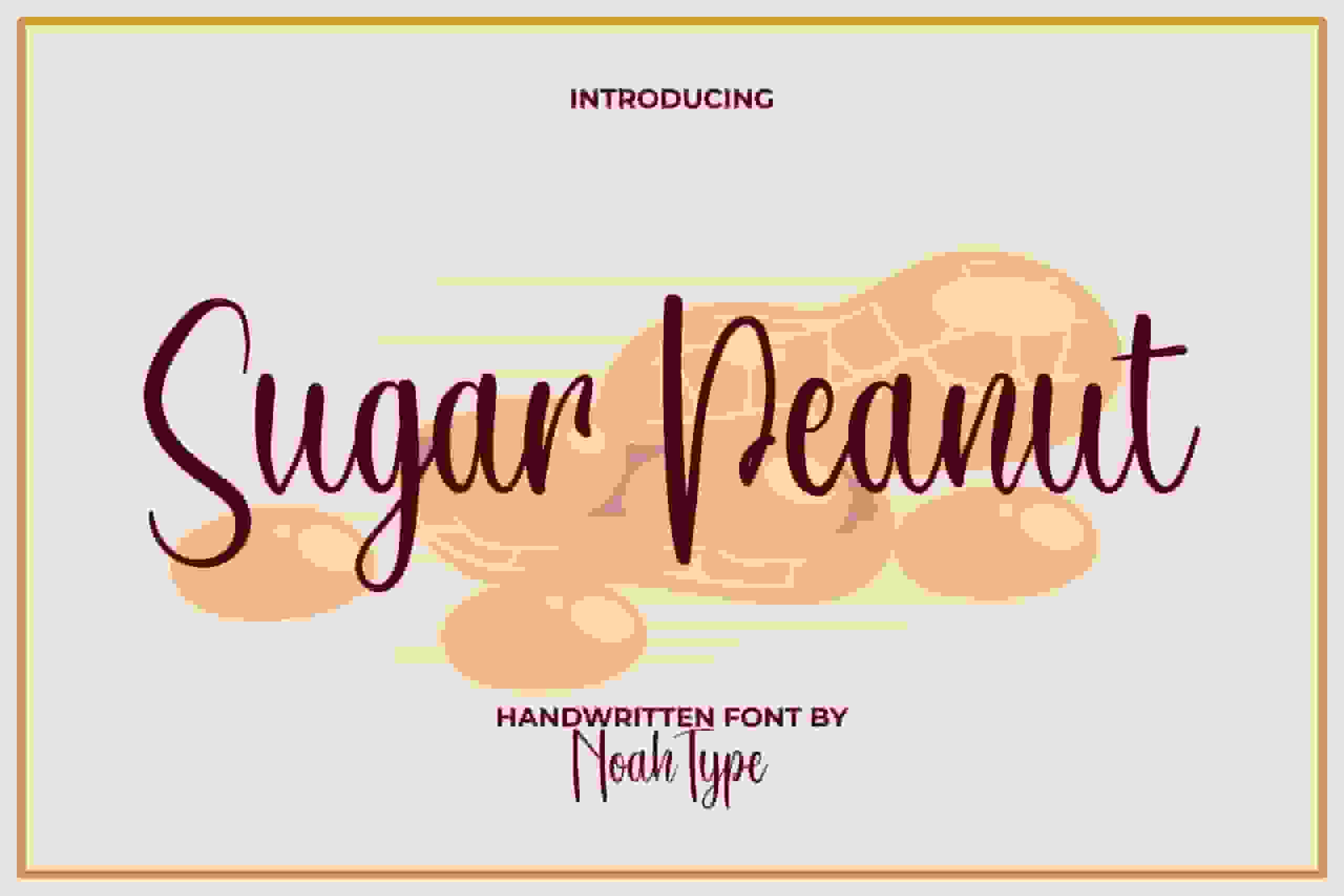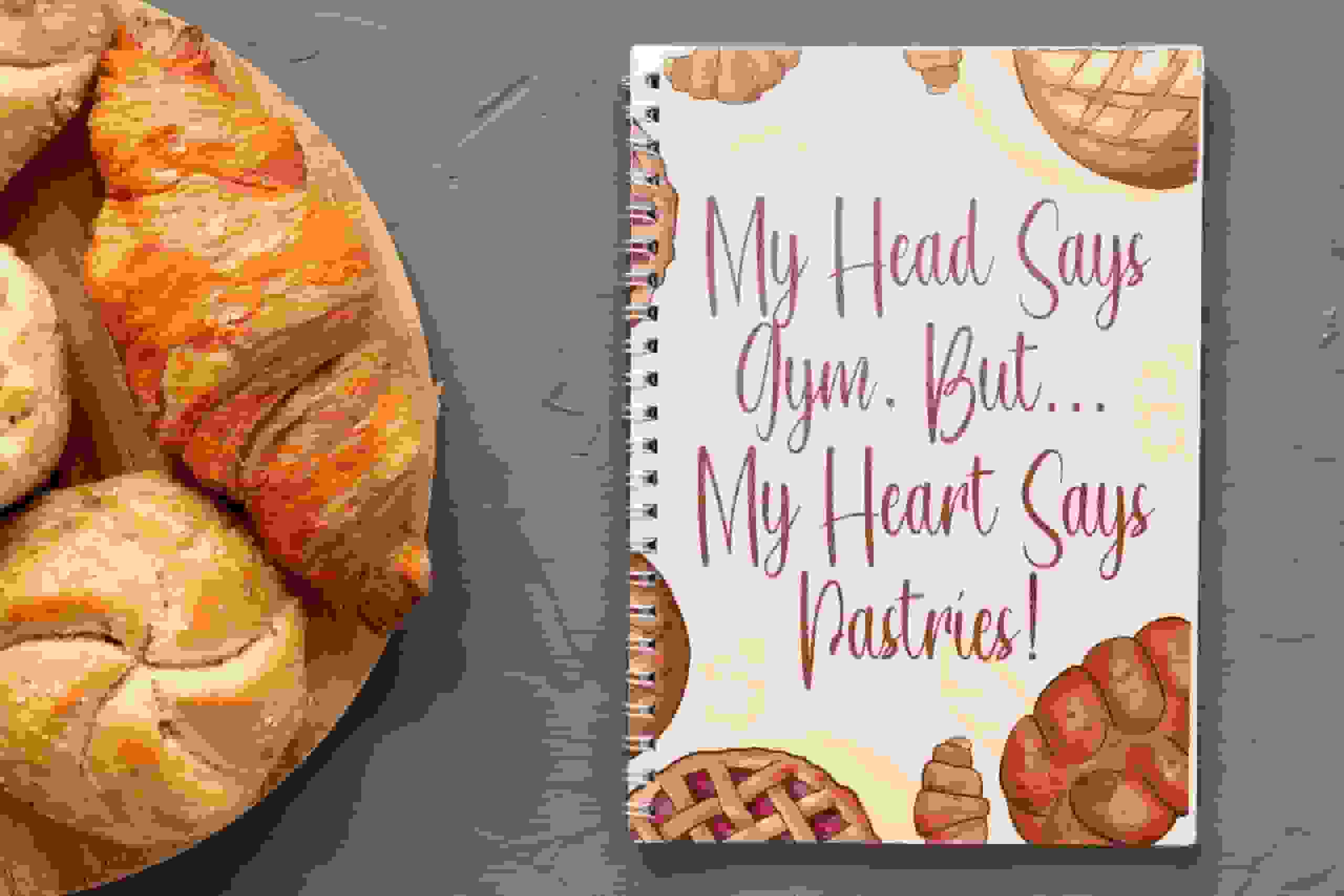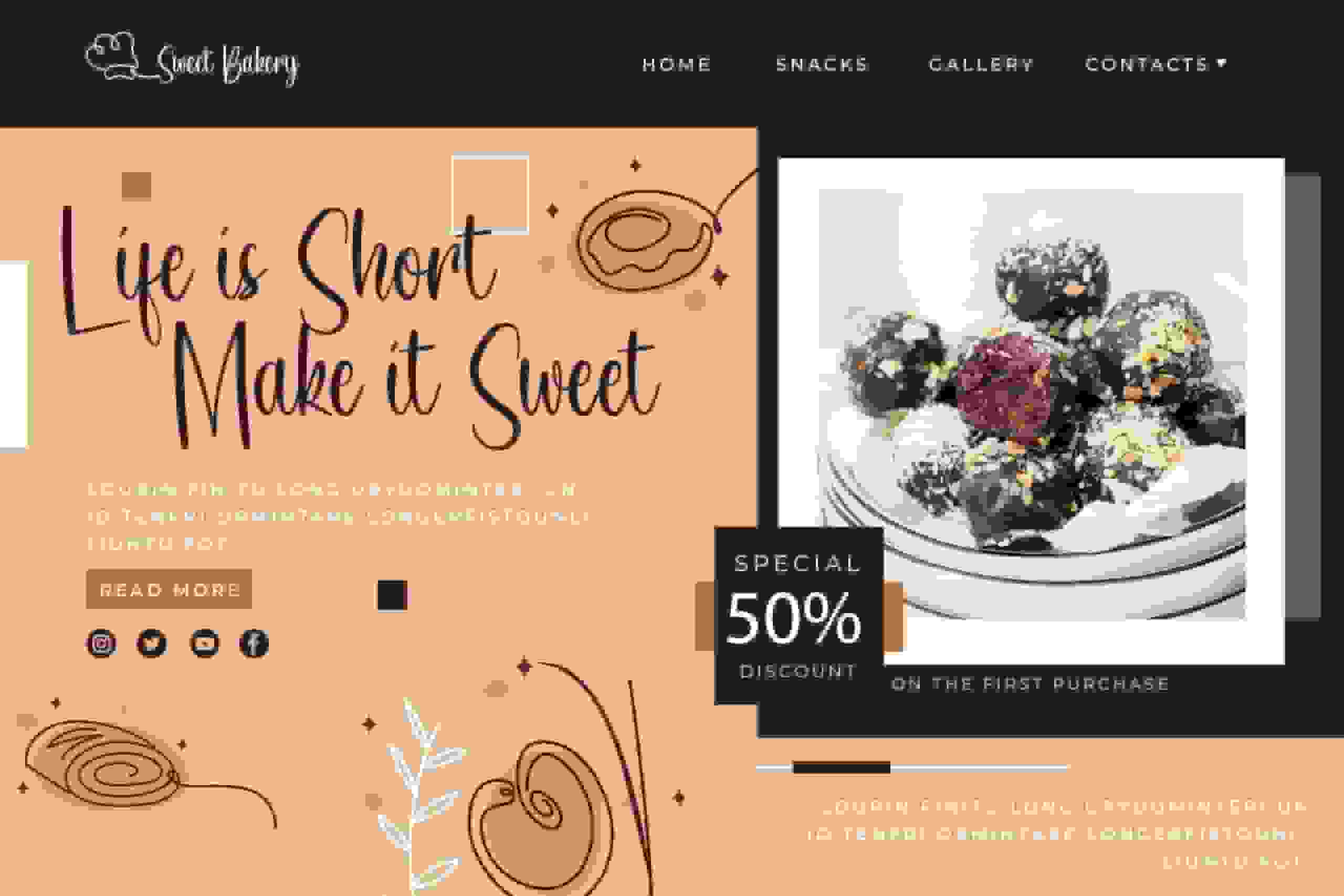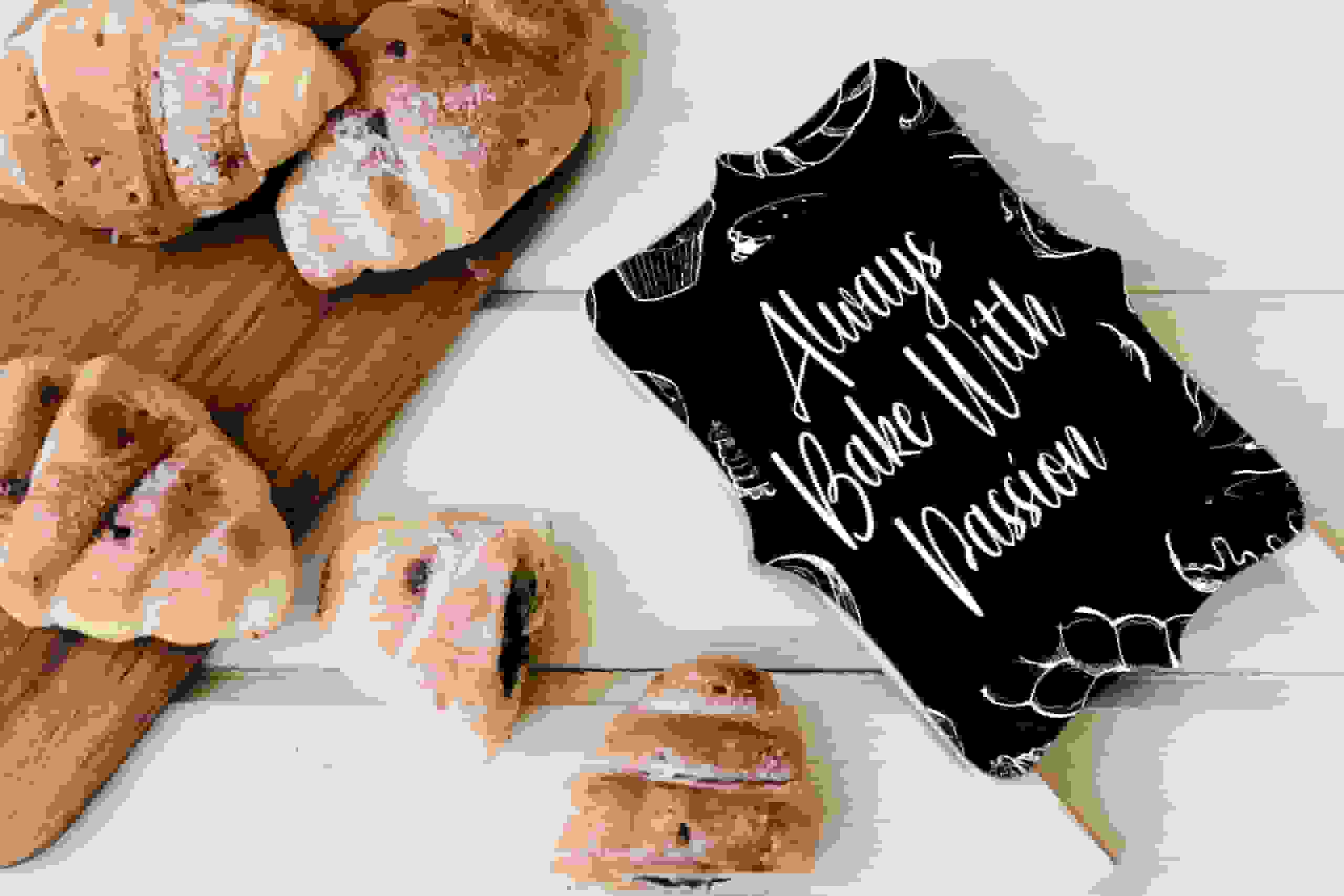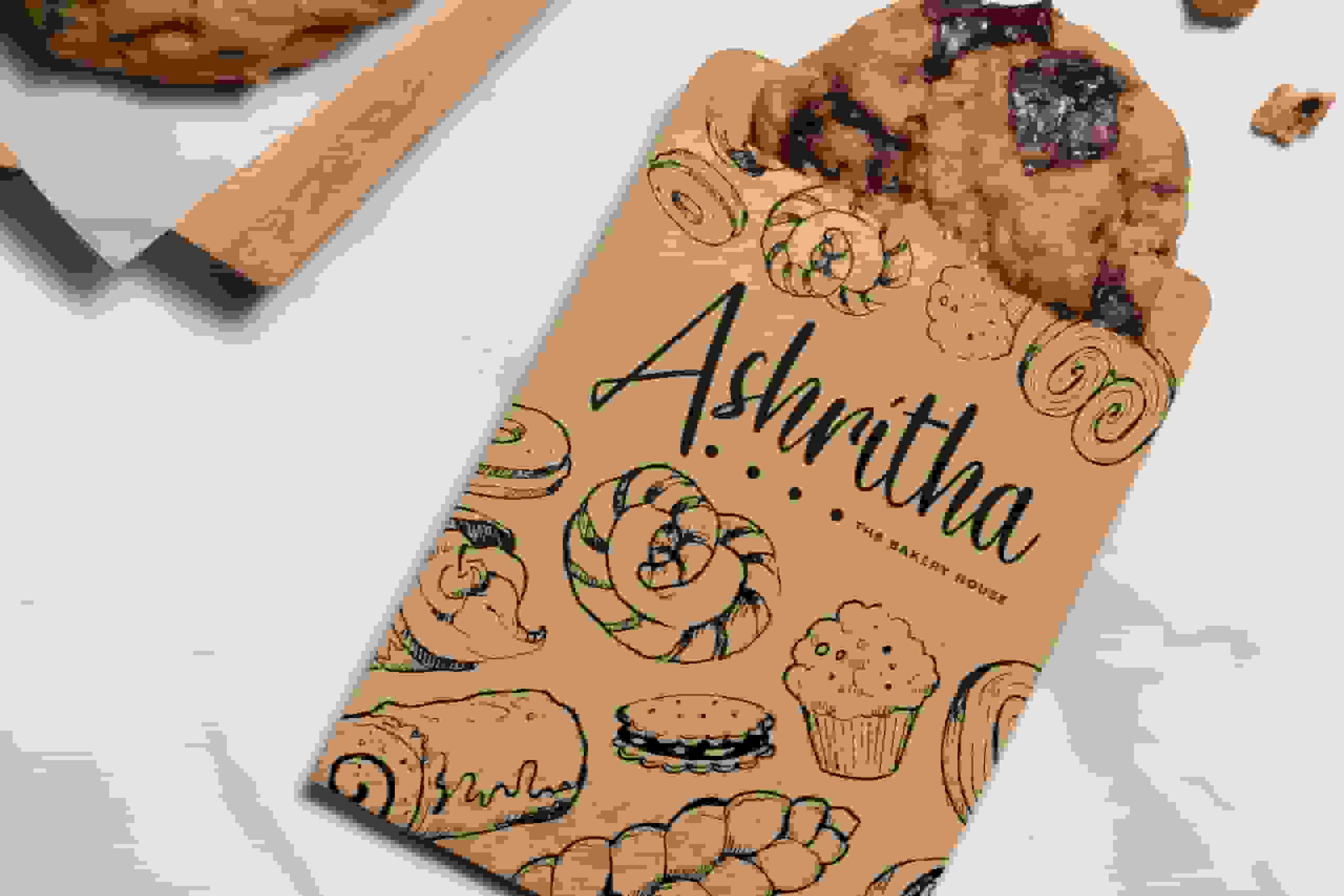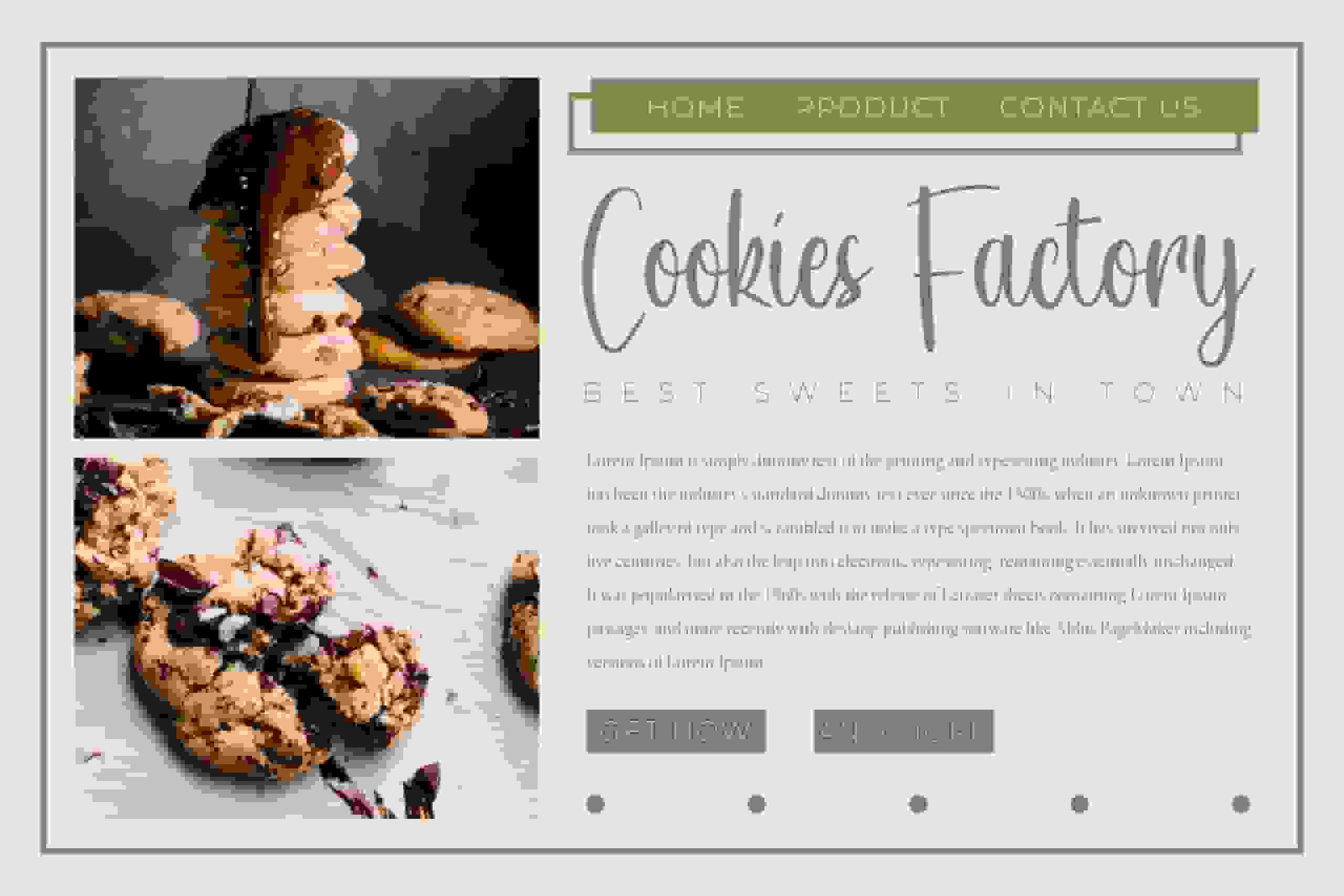
Sugar Peanut Font is a lovely script handwritten font with stylish look. This font can give a sweet and fun impression to make your design feel more alive. It will be suitable for any industries, such as advertisement, bakery and pastry, cafe, beauty product, event or wedding organizer, fashion, florist, printing, publishing, and more!
Sugar Peanut Font includes full set of Uppercase and Lowercase Basic Characters, Numerals, Punctuation and Symbol. Go get and use this stunning font in your various designs, such as brand image, brochure, custom design, gift box, greeting or thank you card, invitation, label, menu, poster, quotes, screen printing, signage, stationery, website, and more!